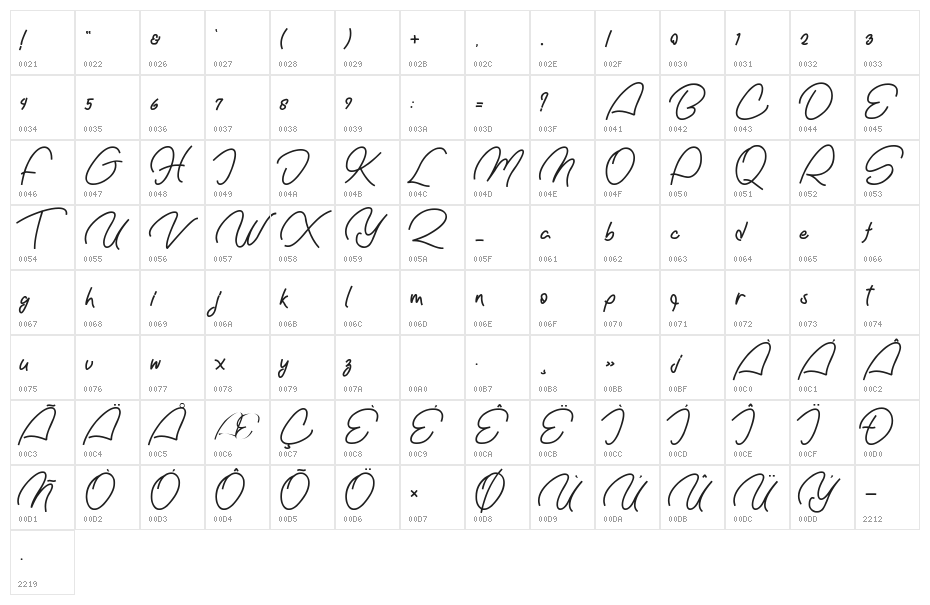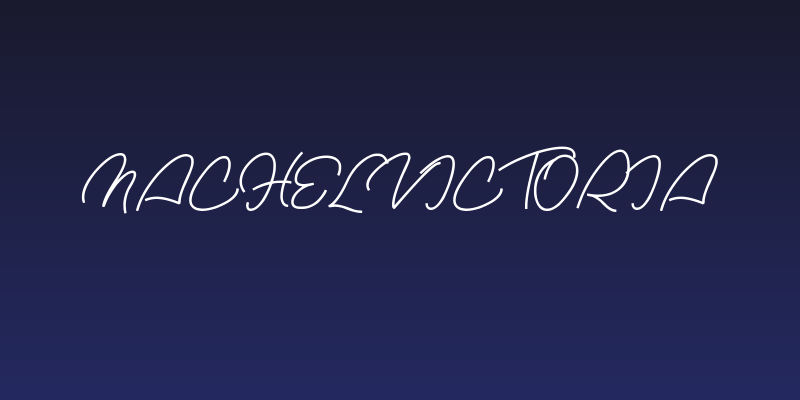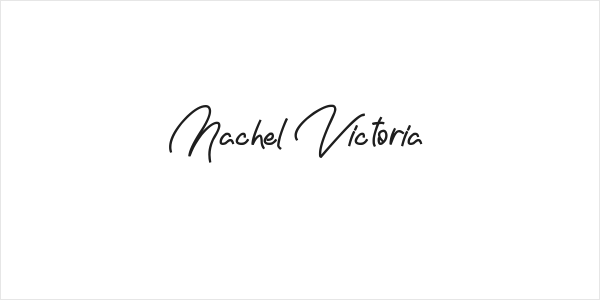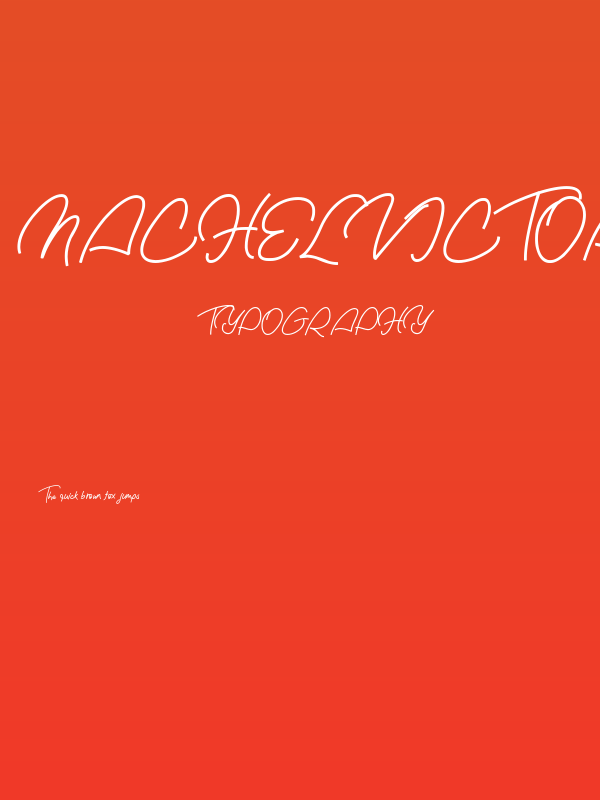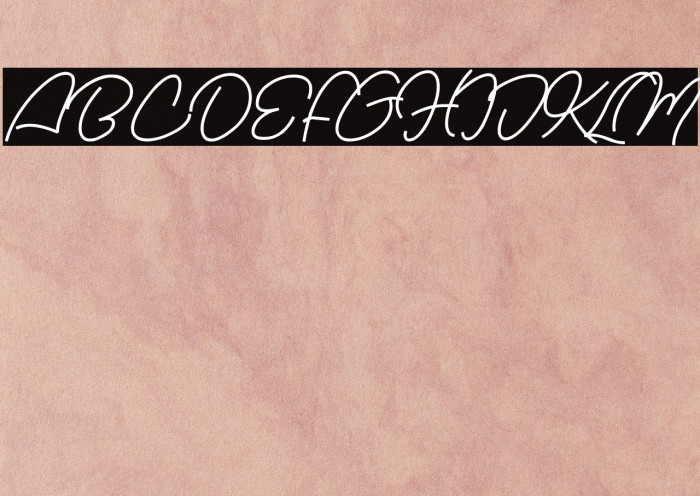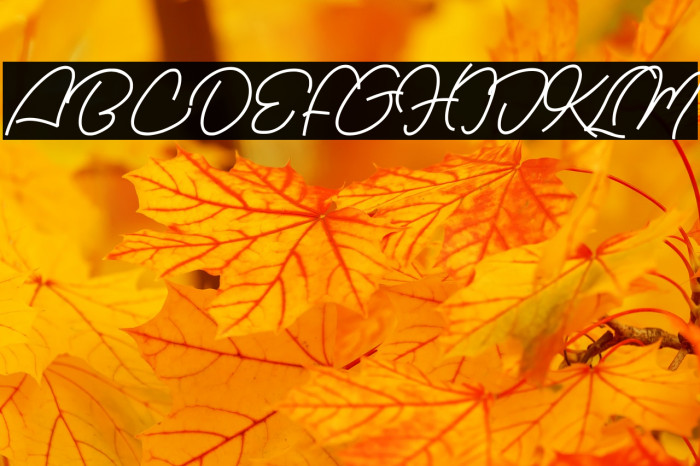
Nachel Victoria Font
Nachel Victoria Description
This font features a flowing, cursive style with elegant curves and a handwritten appearance. The uppercase letters are particularly ornate, with sweeping lines and a sense of motion that gives the text a dynamic feel. The lowercase letters maintain this fluidity, offering a consistent and harmonious look throughout. The numbers and special characters are designed to match the overall aesthetic, ensuring a cohesive appearance across all text elements. This font is ideal for projects that require a personal touch, such as invitations, greeting cards, or branding materials that aim to convey elegance and sophistication.
| Overall Style | Elegant, Handwritten |
| Use Case | Headlines, Logos, Invitations |
| Proposed Projects | Ideal for invitations, greeting cards, branding materials, and any project requiring a personal, elegant touch. |
| Author | Fonts by InermediaSTUDIO |